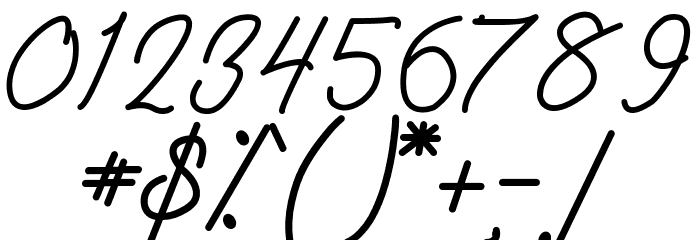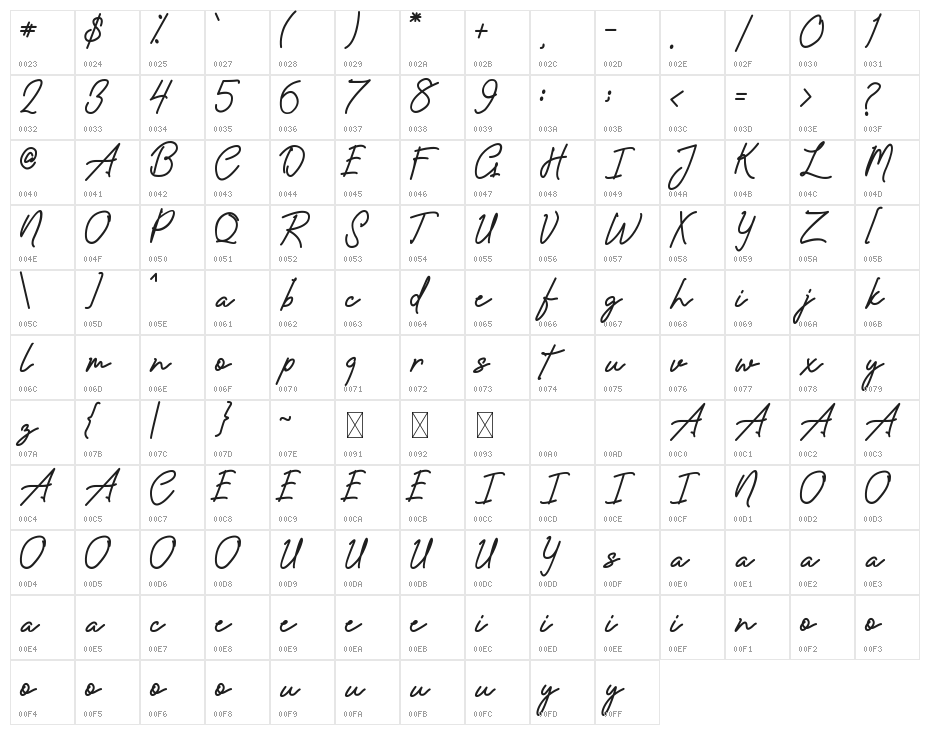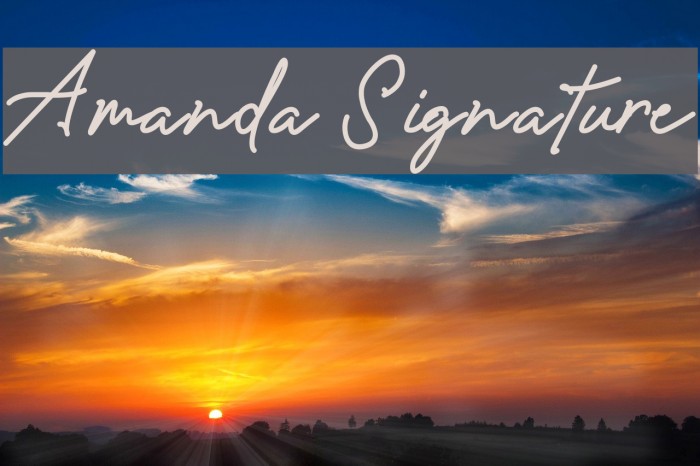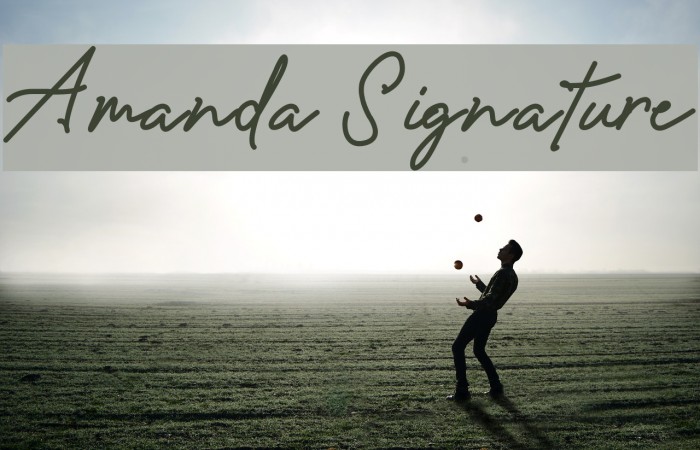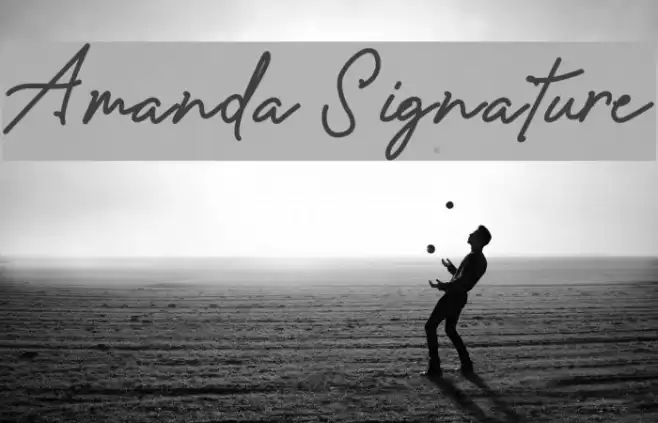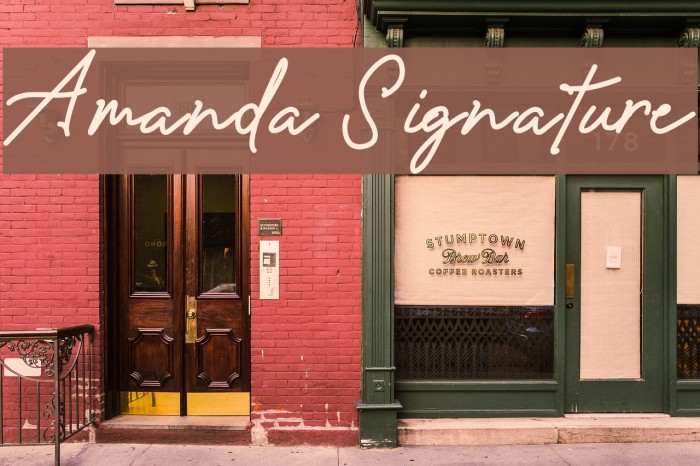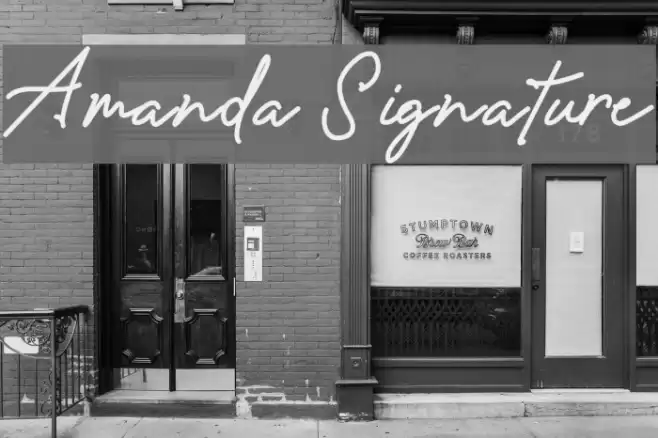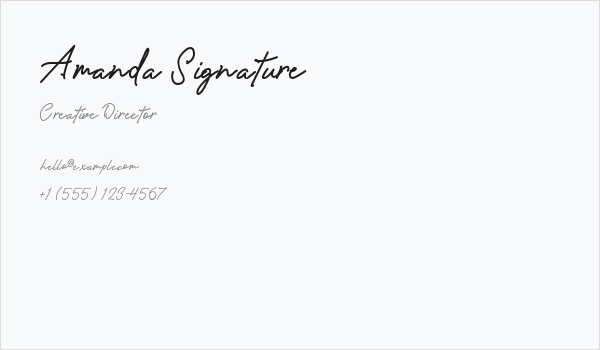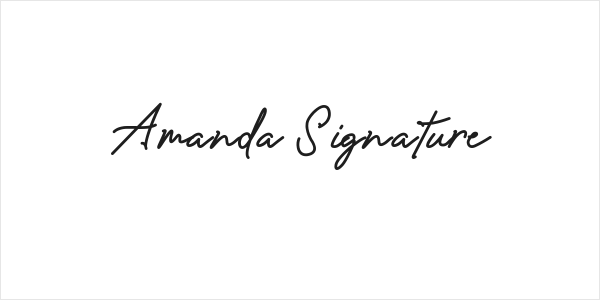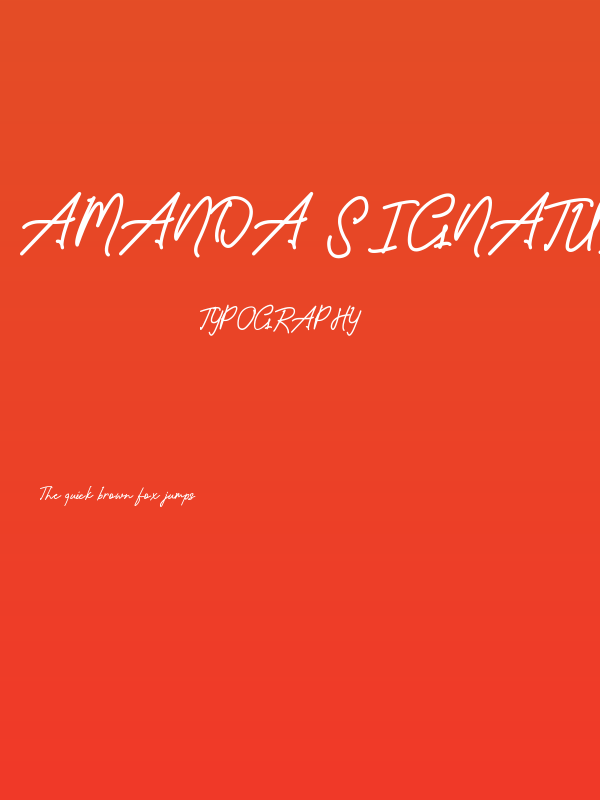
Amanda Signature Font
Amanda Signature Description
This font exudes a personal and artistic flair, reminiscent of elegant handwriting. The characters are fluid and connected, creating a seamless flow that mimics the natural movement of a pen. The uppercase letters are bold and slightly larger, maintaining a consistent height, while the lowercase letters are more varied in their ascenders and descenders, adding to the handwritten effect. The numerals and special characters maintain the same stylistic approach, ensuring uniformity across all elements. This font is perfect for projects that require a personal touch, such as invitations, greeting cards, or branding that seeks to convey warmth and individuality.